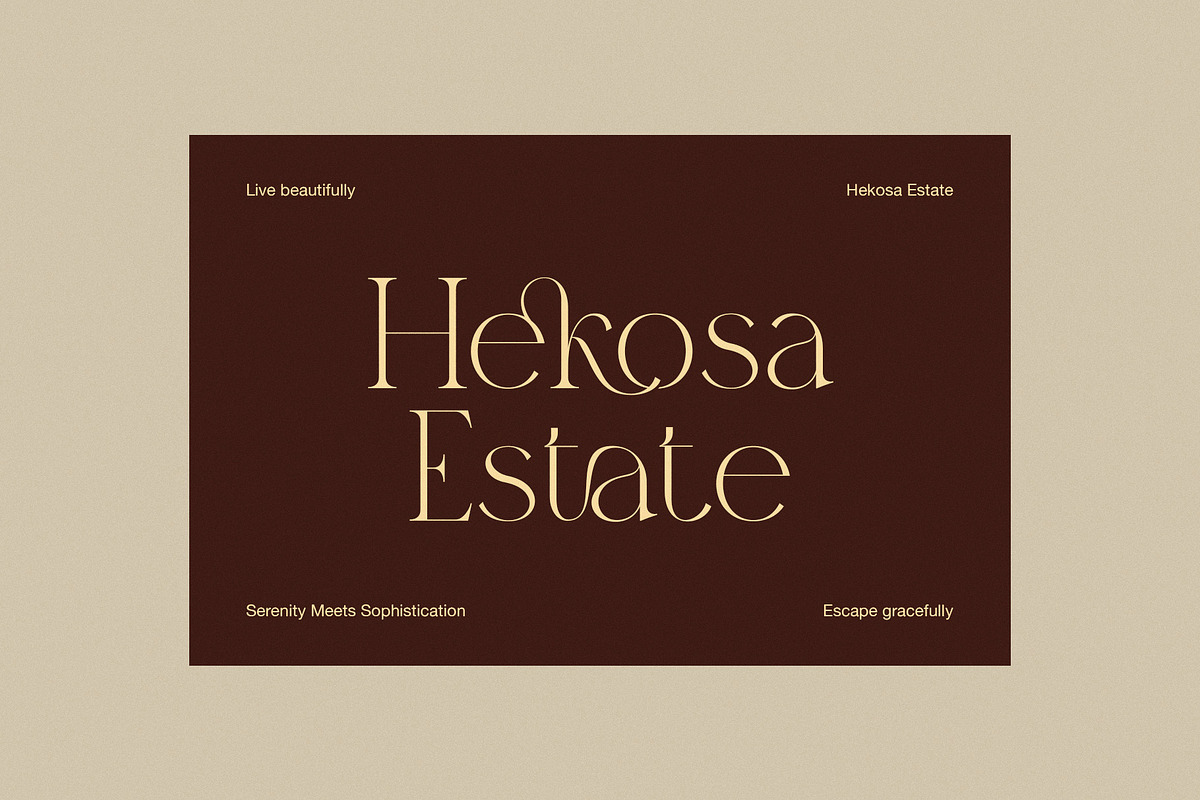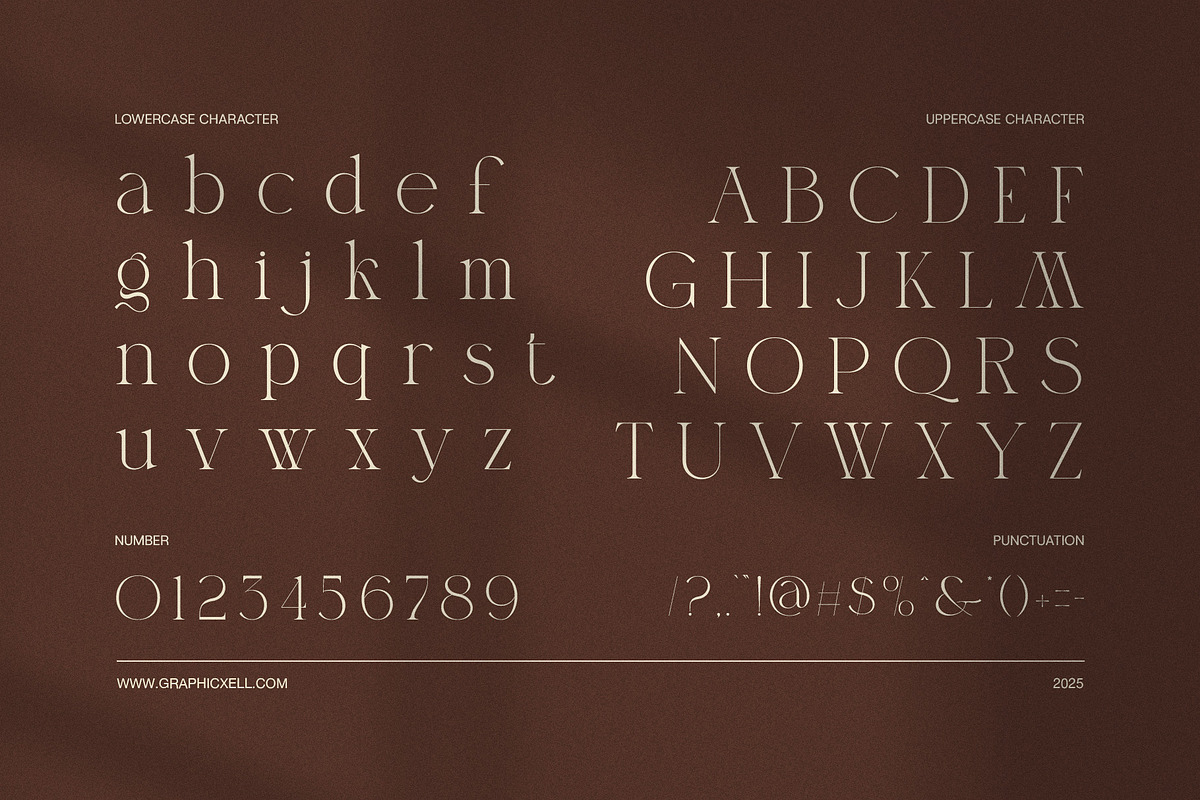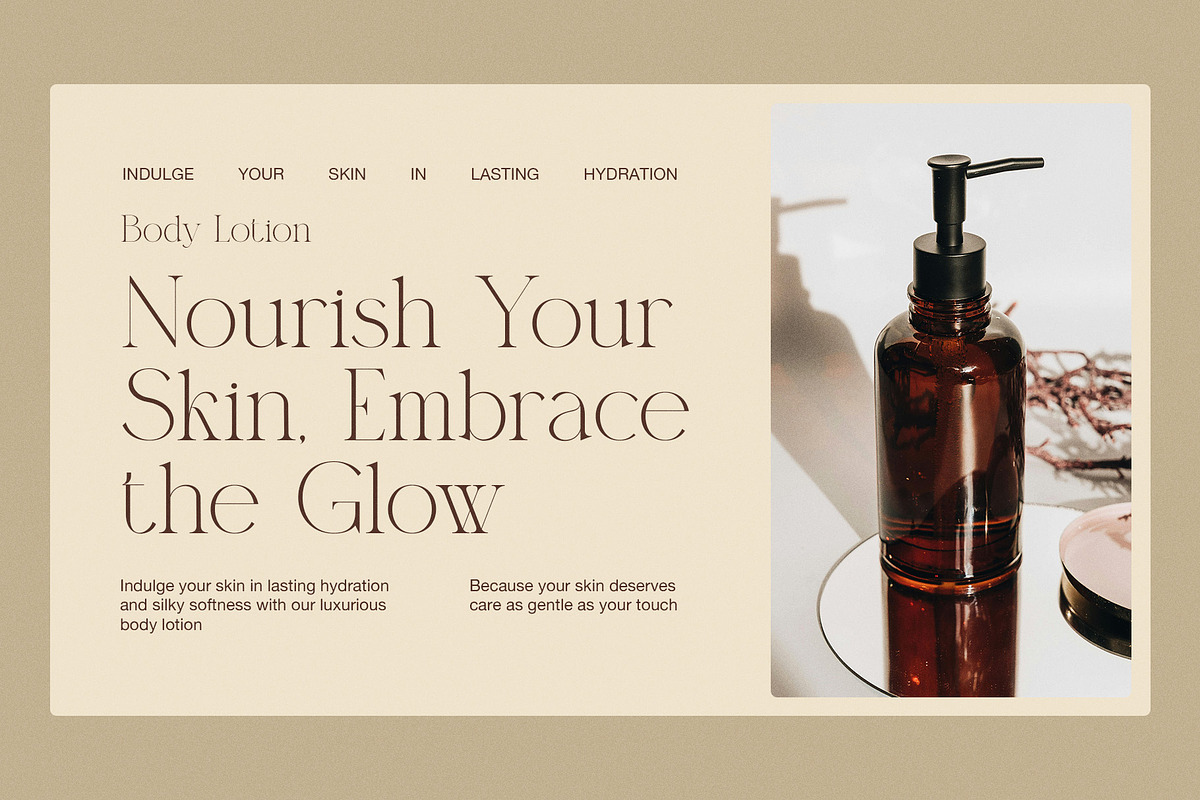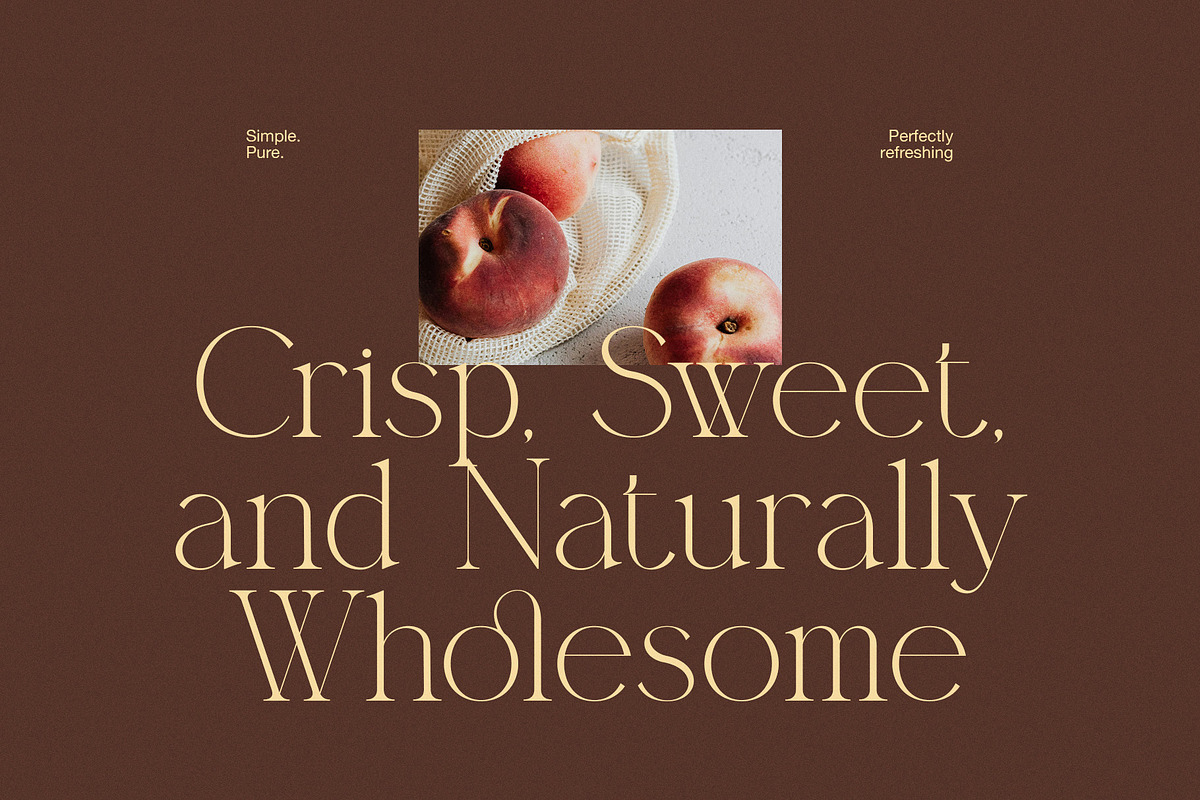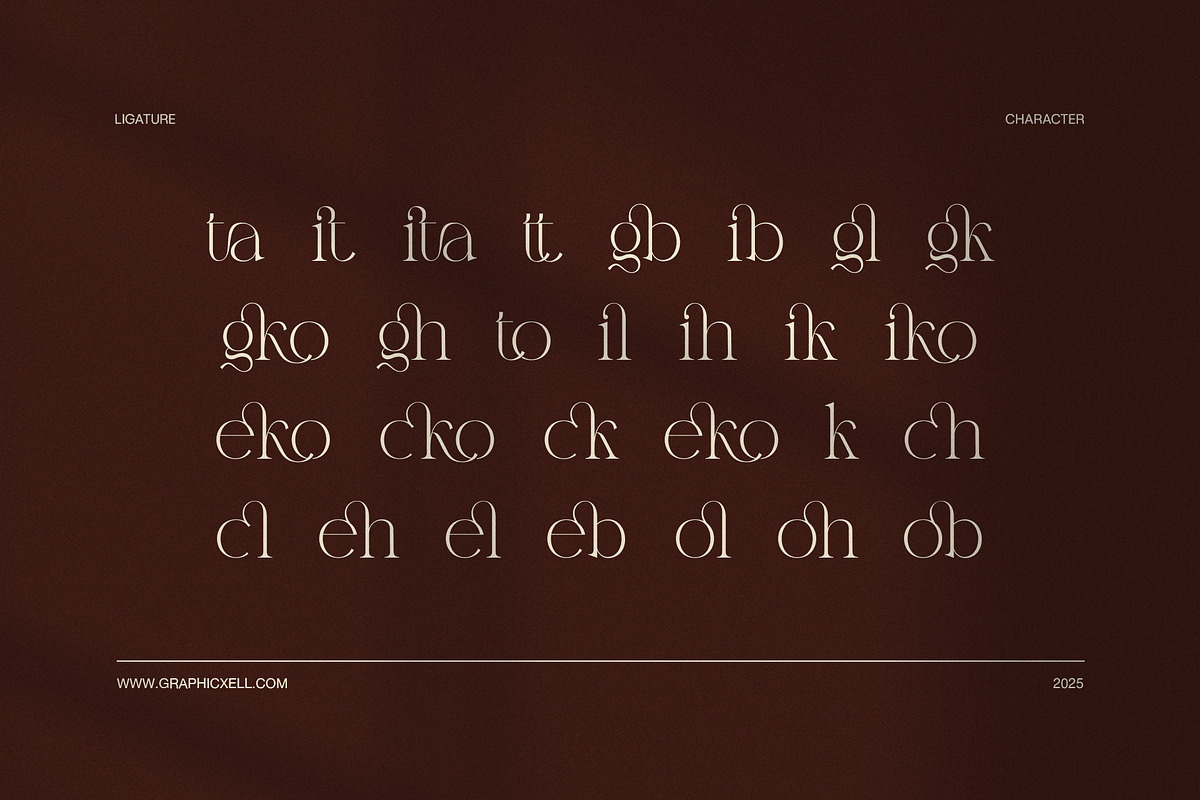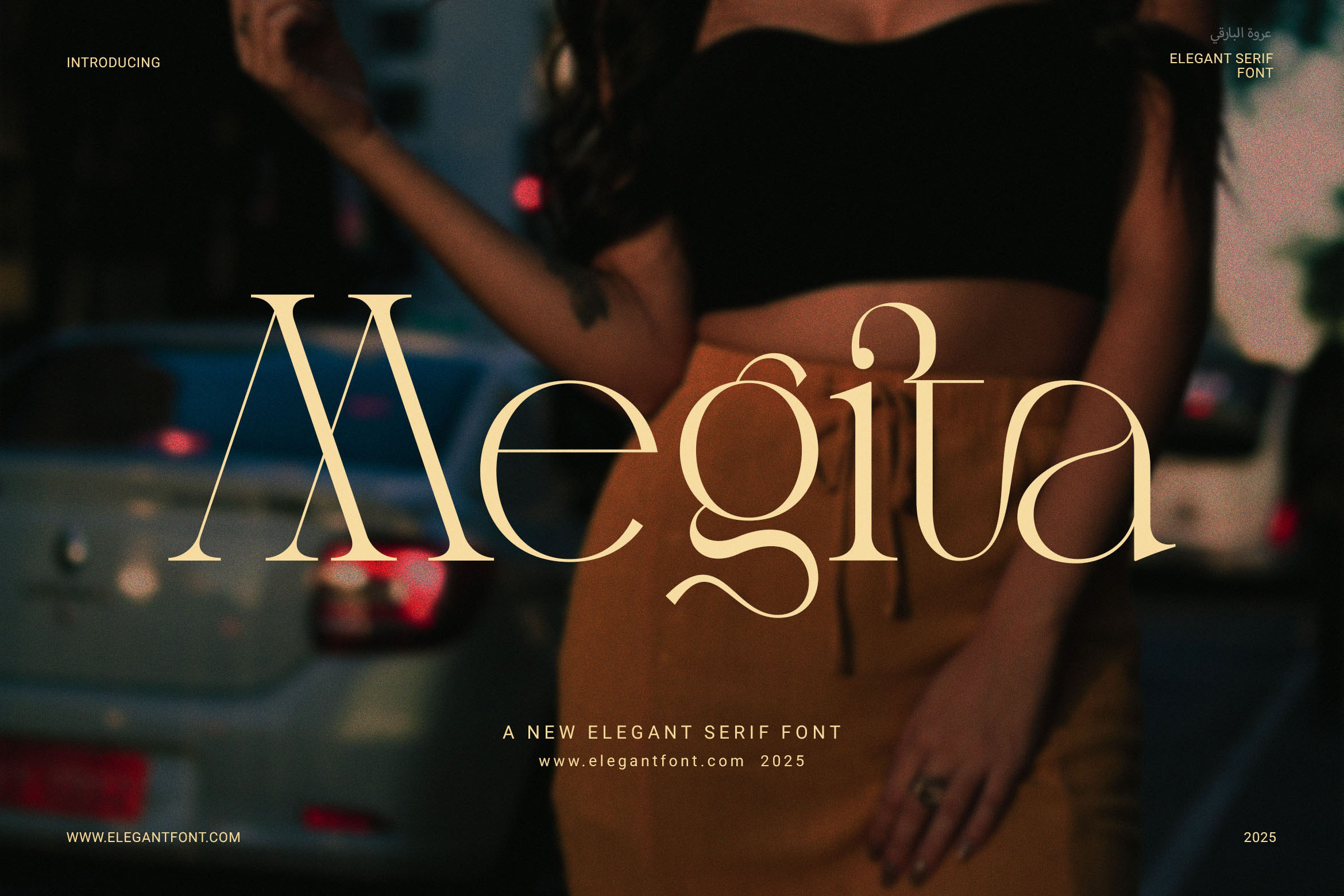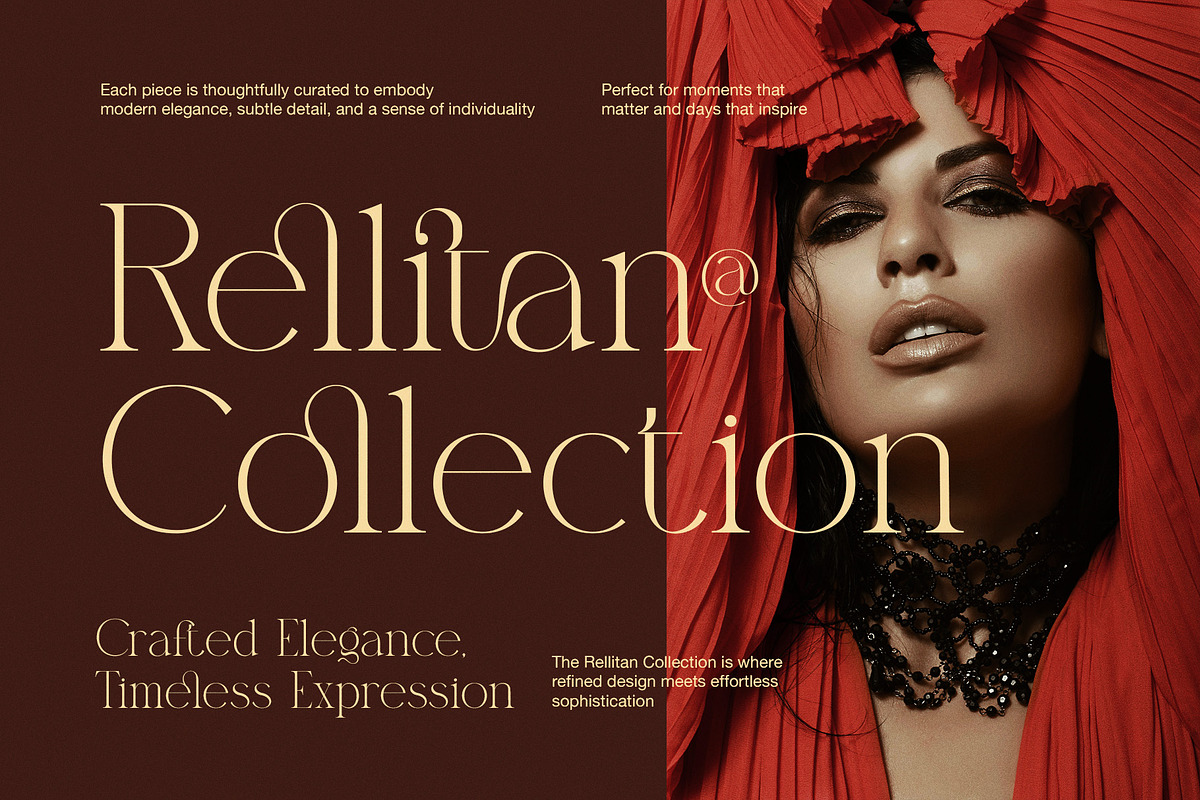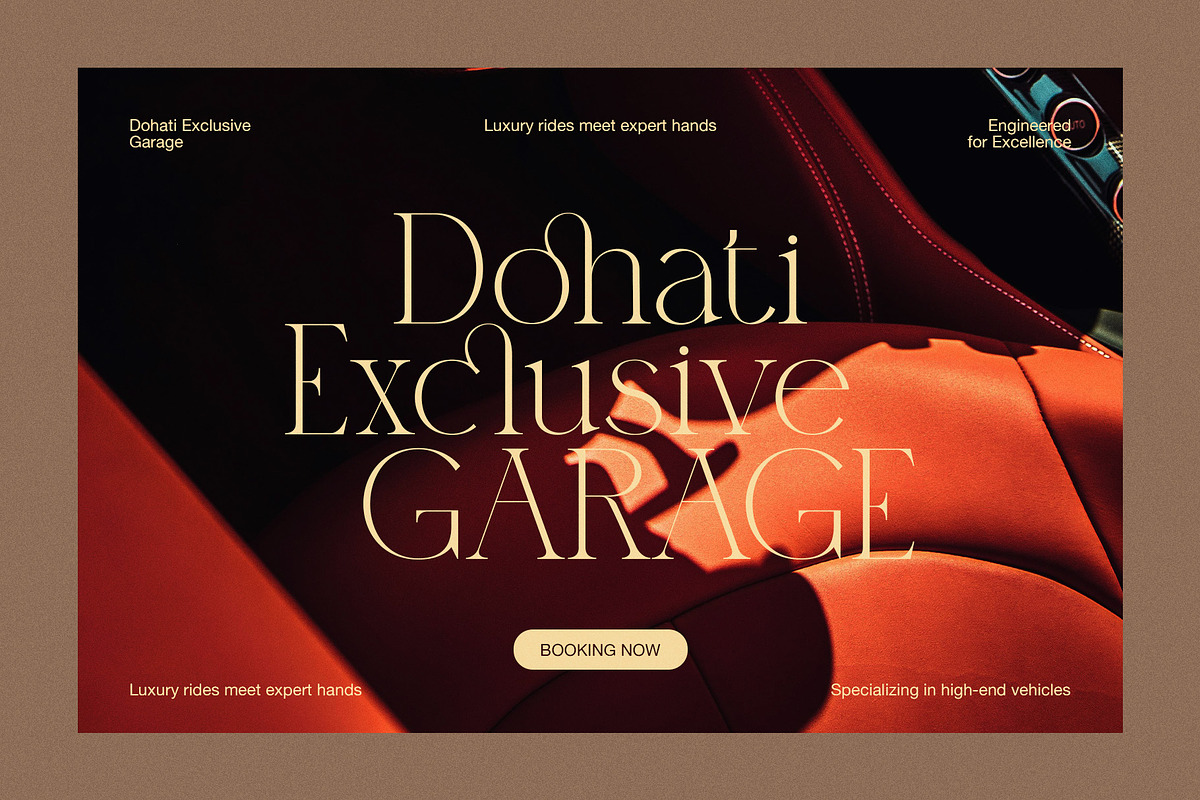
Megita Elegant Serif Font
Megita Elegant Serif Font is a stylish typeface that blends modern design with classic elegance. It features clean, proportional letterforms that give every layout a refined and polished look. Whether you're working on branding or packaging, this font delivers a strong and timeless feel.
Thanks to its soft curves and balanced shapes, Megita looks great in both large headlines and smaller text. It also includes functional ligatures, which add a natural and elegant touch to each word. As a result, your designs will appear more professional and visually appealing.
Moreover, Megita is easy to use across a wide range of design projects. It’s perfect for:
Luxury logos and brand identities
Fashion magazines and editorials
Product packaging and labels
Wedding invitations and stationery
Websites and landing pages
Boutique signage and menus
High-end advertising
In addition, this font supports OpenType features, which help ensure smooth integration in any design software. Its versatility allows it to suit both minimalist and premium layouts, depending on your needs.
Because of its clear lines and elegant presence, Megita is an excellent choice for designers, entrepreneurs, and creatives. It’s ideal for anyone who wants to create a modern, stylish brand with a touch of class.
So, if you’re looking for a serif font that offers beauty, function, and flexibility, Megita is a font worth adding to your toolkit.